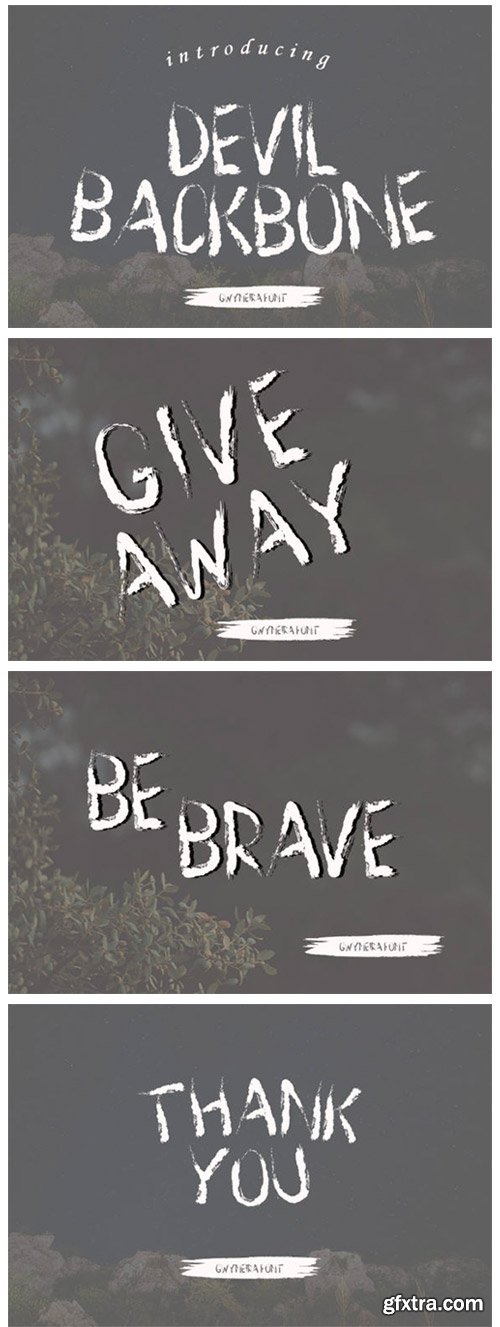
Devil Backbone Font
Devil Backbone is a truly scary horror-themed blackletter font. It has a brushed look which makes it perfect for adding a scary touch to your designs.